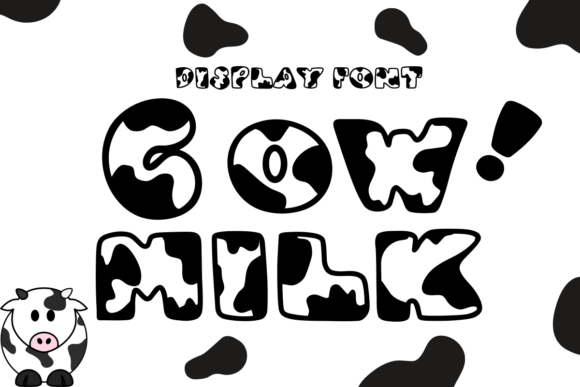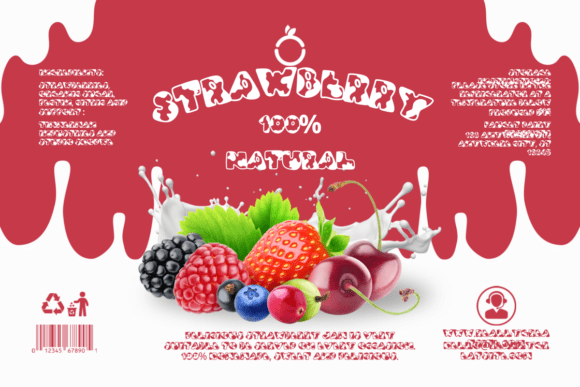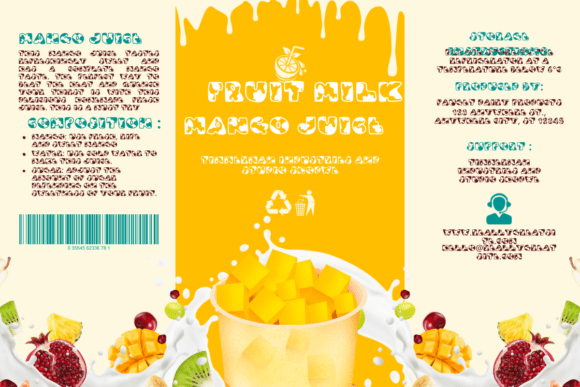
Cow Milk Font
About the Cow Milk Font
Crafted with precision, the Cow Milk Font is ready to bring your ideas to life. Cow Milk is a bold and quirky display font inspired by cow print patterns. Each letter is filled with playful black-and-white spots, making it ideal for dairy branding, farm-themed projects, kids’ merchandise, and fun signage. It brings a dose of rural charm and graphic novelty to any layout.
Cow Milk excels as a display font for headlines, logos, and short impactful text in packaging or posters. Its playful nature makes it perfect for children’s products, branding for food companies with a rustic or fun aesthetic, and eye-catching signage. However, its highly decorative nature makes it unsuitable for body text or UI elements where readability is paramount. Long paragraphs set in Cow Milk would be extremely difficult to read.
Pairing Cow Milk effectively requires a contrasting typeface to provide balance. A clean sans-serif like Helvetica Neue or a simple serif such as Garamond would offer a sophisticated counterpoint to its whimsical character. For a more playful approach, consider pairing it with a rounded sans-serif font.
The overall personality of Cow Milk is bold, quirky, and friendly, conveying a sense of playful energy and approachable charm. It is best suited for brands that wish to project a fun, slightly rustic, and memorable image.
Cow Milk Font Usage Examples
Cow Milk Font Example